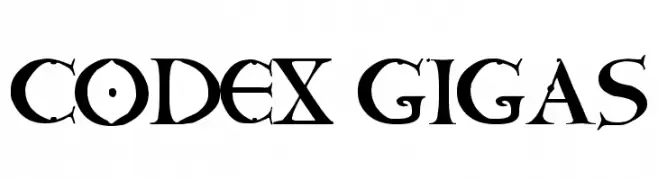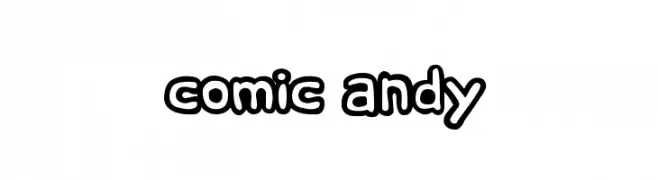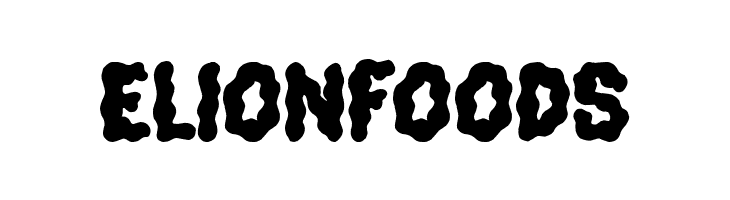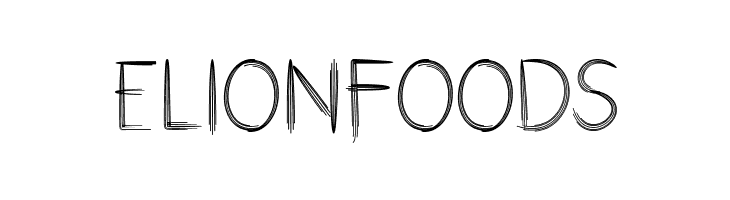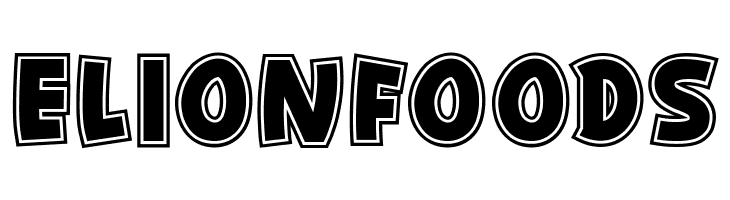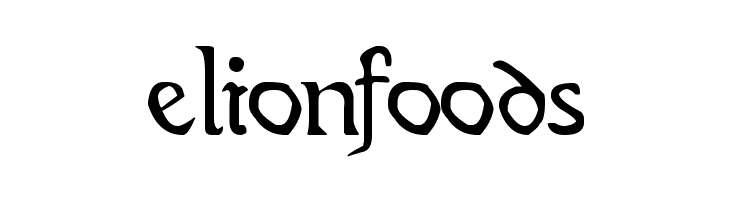
• ClubSport
A bold, outlined font with a playful and dynamic style.
• Cocaine
A bold, dripping font perfect for horror or dramatic themes.
• Cocaine
A bold, dripping effect font with a unique, edgy style.
• Code New Roman
A modern, monospaced font ideal for coding and technical documents.
• CODEX GIGAS
A medieval gothic font with sharp serifs and dramatic contrast.
• Coire demo Italic
A cursive, italic font with elegant, flowing lines and a handwritten appearance.
• Color Me Purple
A bold, playful font with a bubbly, organic design.
• Combined Lines
A hand-drawn, sketch-like font with overlapping lines and a textured appearance.
• Comedo
A bold, outlined font with a playful, three-dimensional effect.
• comic andy